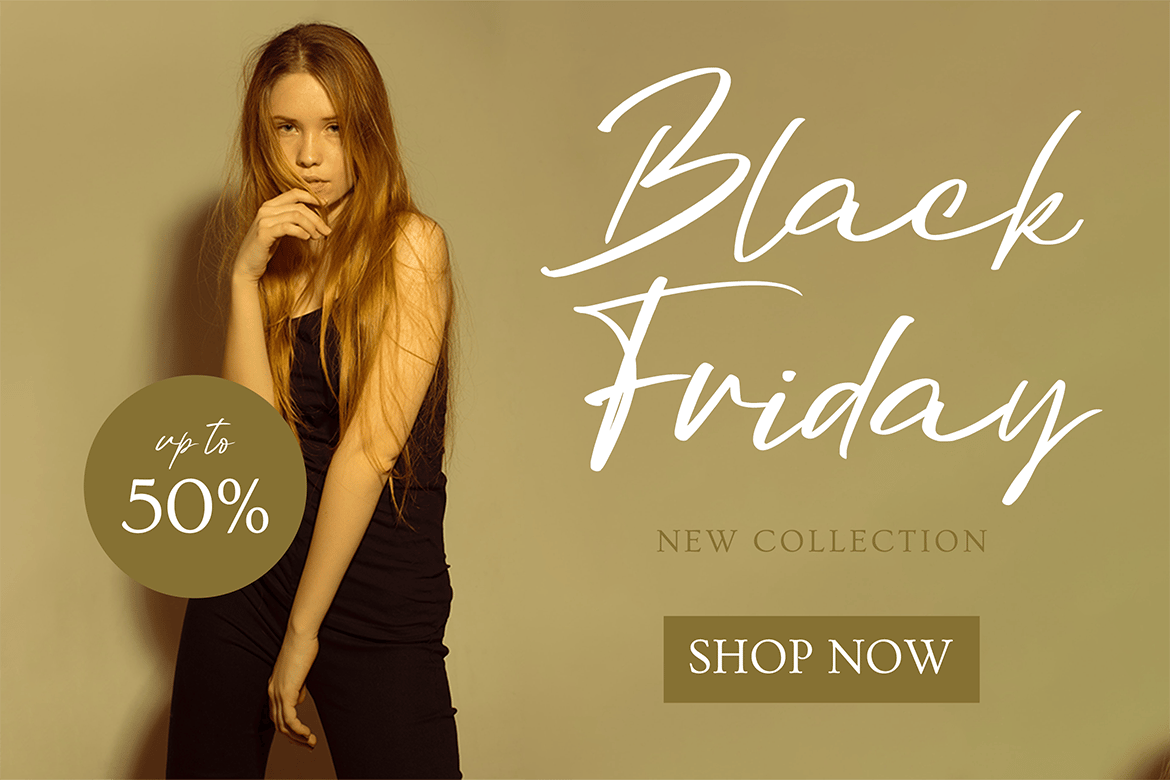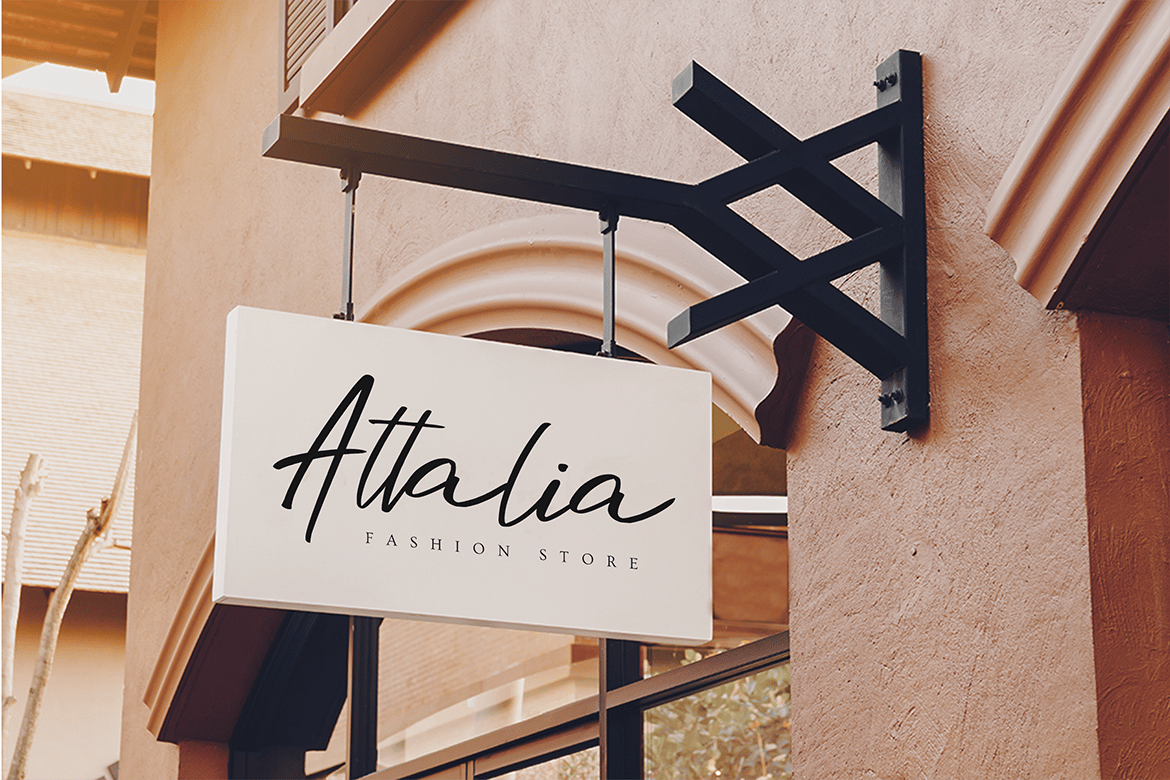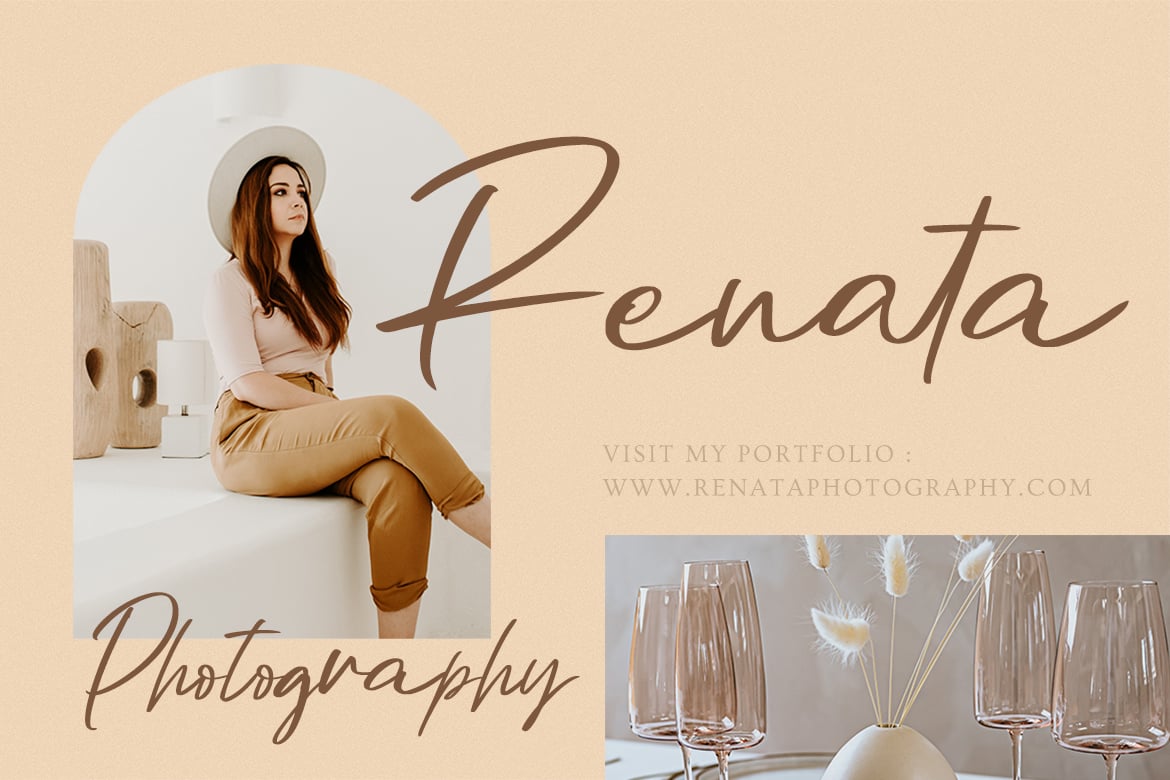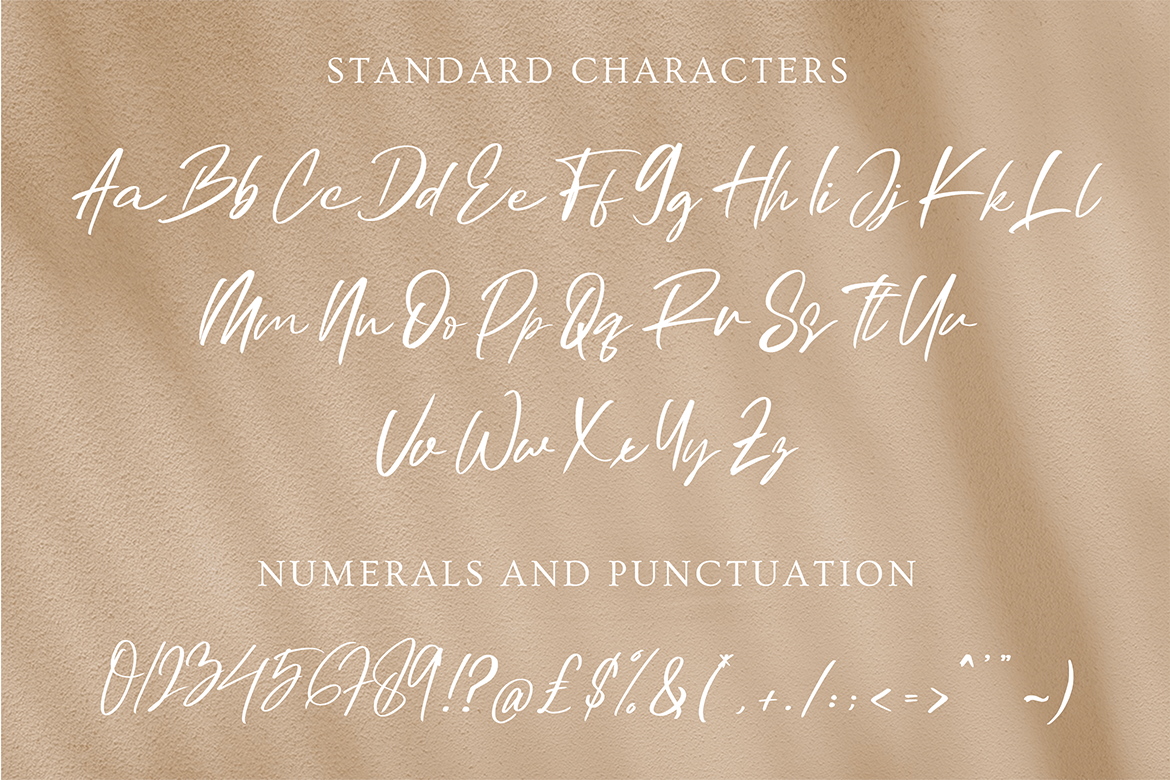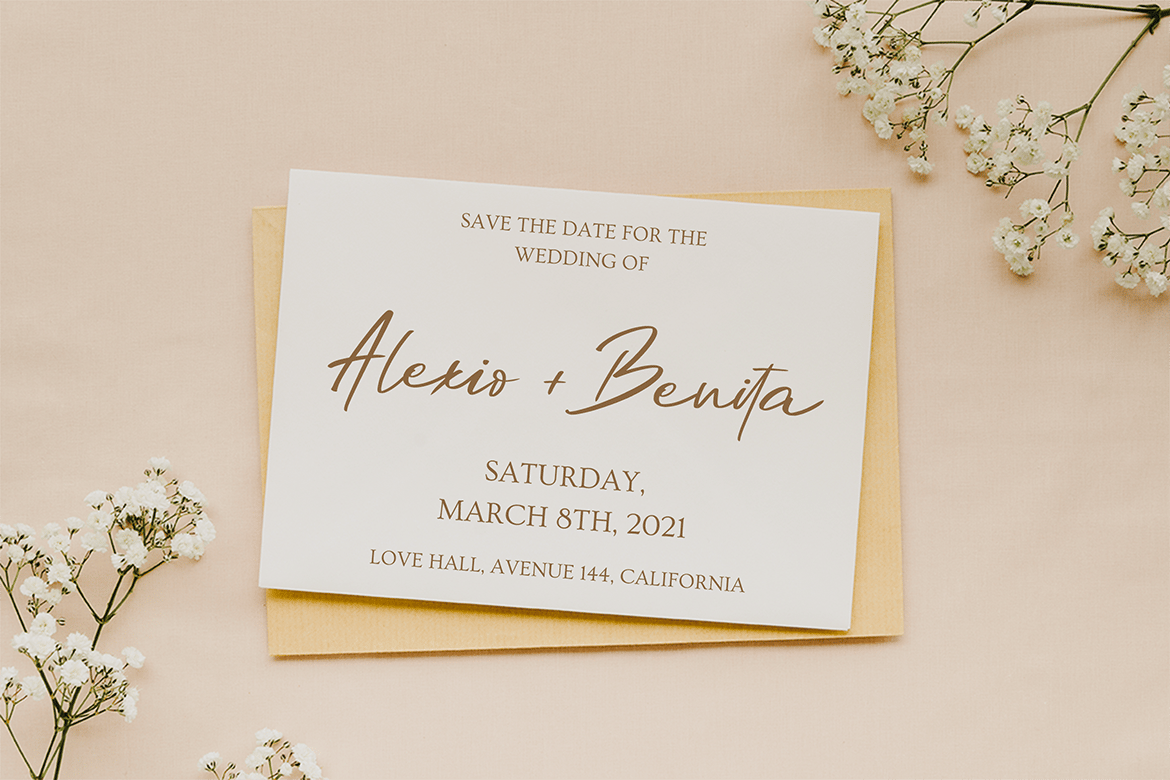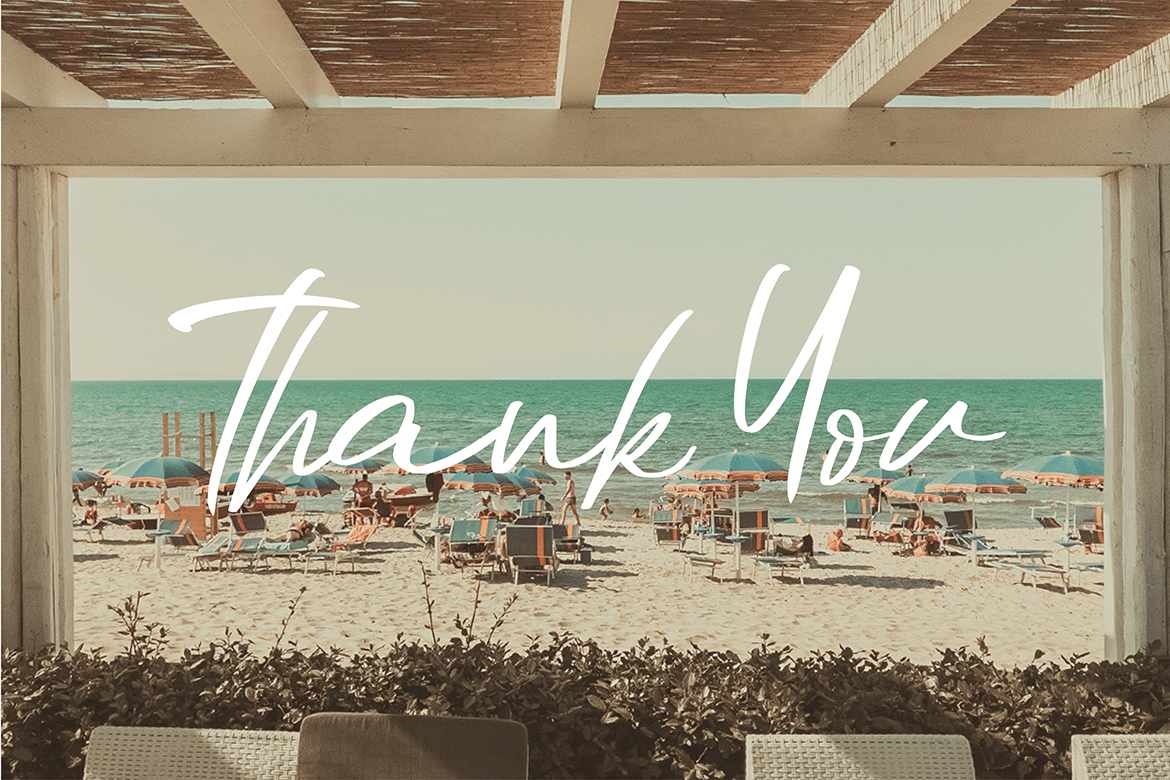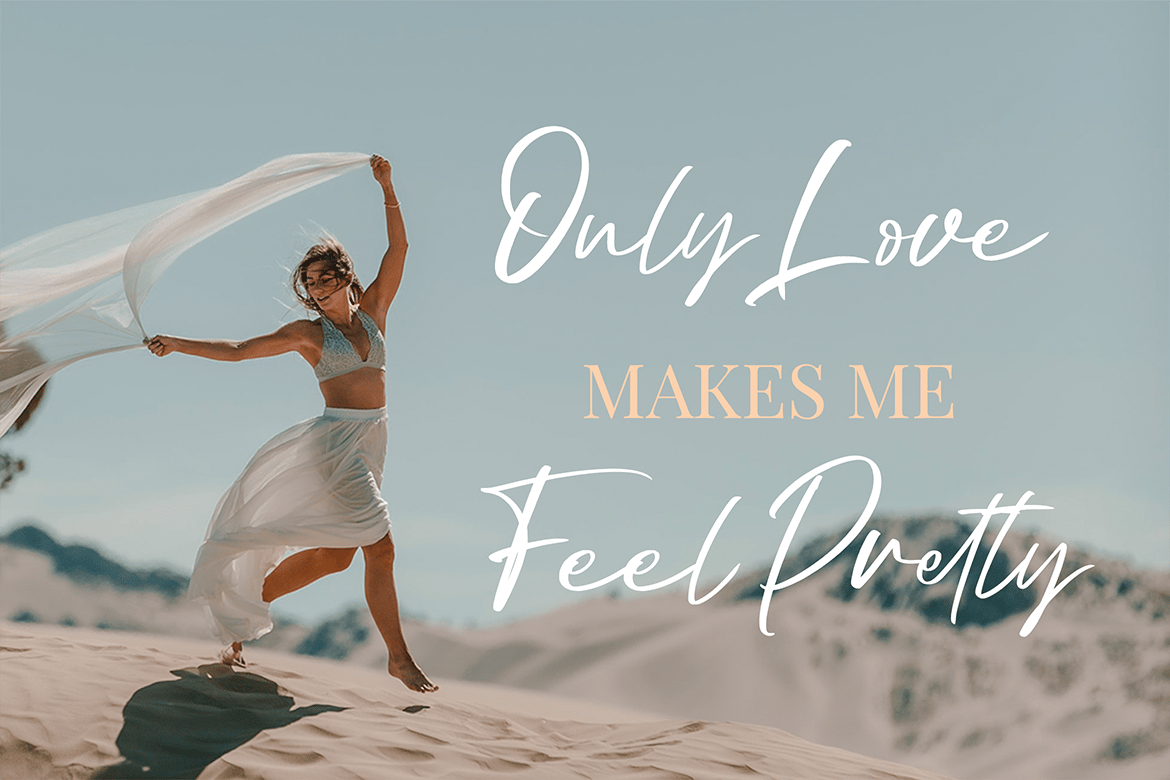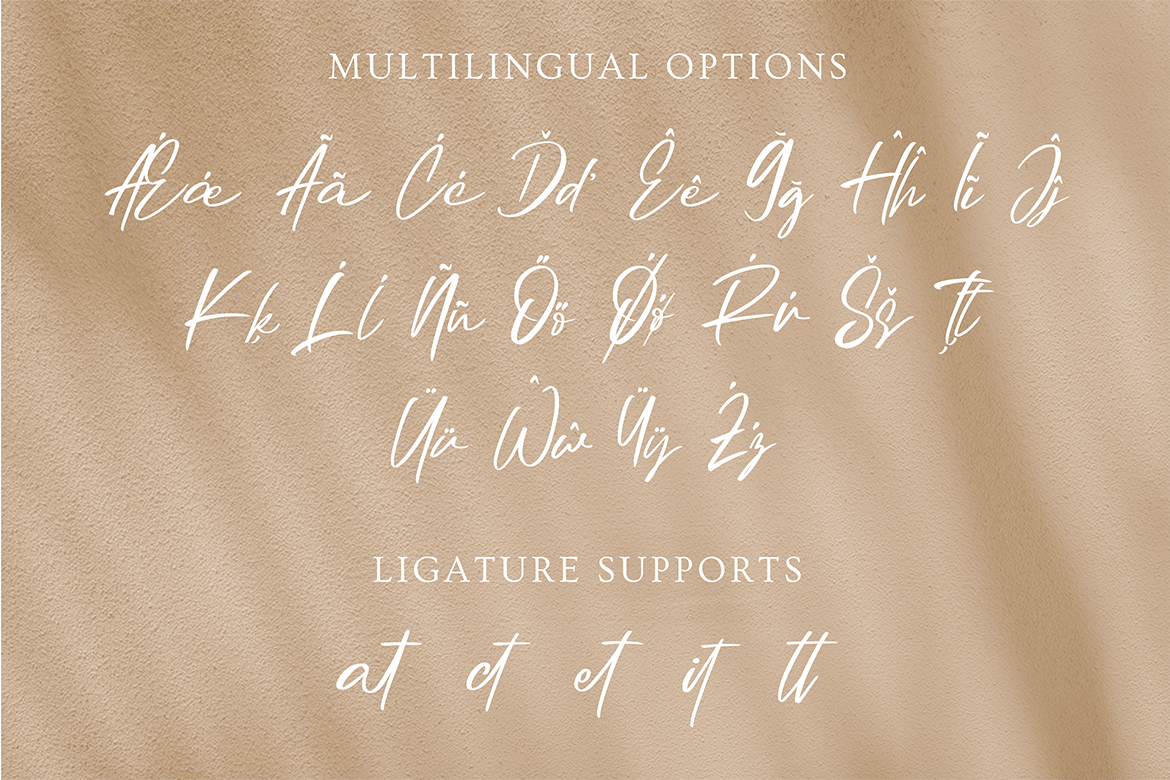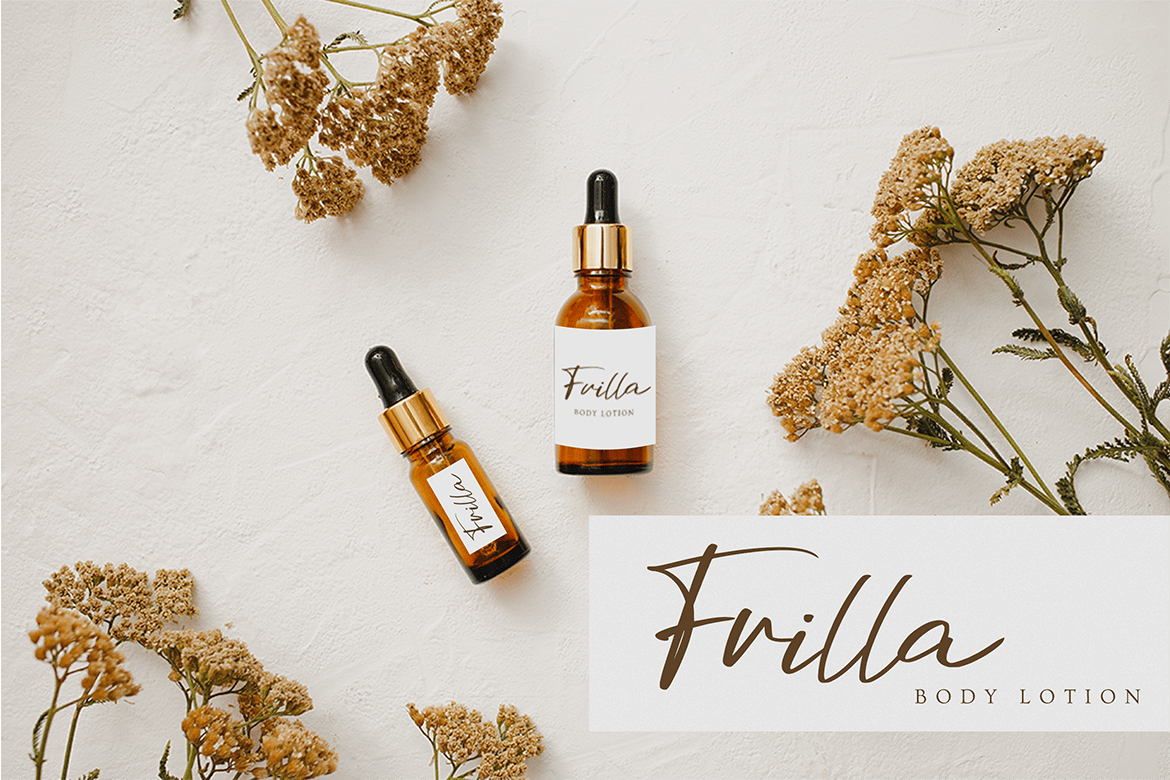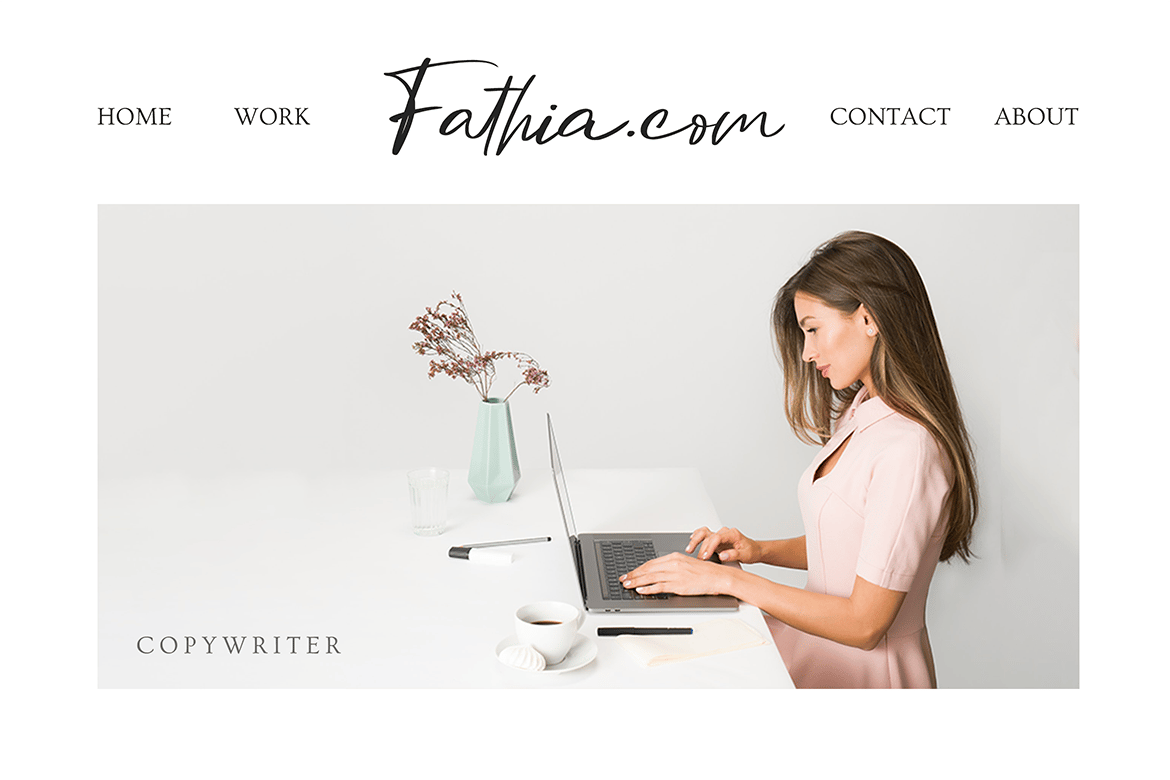
Handwritten Script Font
Are you looking for a logotype for your studio name or your beauty product? Atelier could be a nice option for those designs. Its clean lines and lovely style make it perfect for logotype, quote, headline, website, packaging, wedding card, and much more!
*Alternates & Ligatures.
*Numerals & Punctuation.
*Multilingual supported.